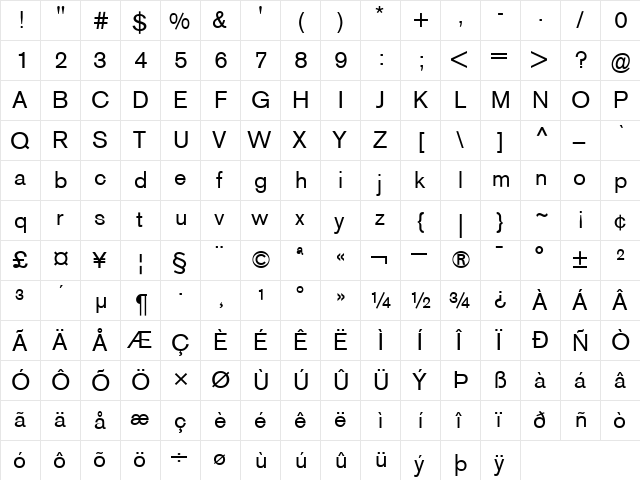
BertholdAkzidenzGroteskBE Roman
Design Context for BertholdAkzidenzGroteskBE Typeface
BertholdAkzidenzGroteskBE has the quiet confidence of well-executed sans-serif typography: versatile, unobtrusive, and dependable at any size.
Font Pairing: Works well alongside a characterful serif or display font that can carry the expressive load while BertholdAkzidenzGroteskBE handles the functional copy.
Pro Tip: Use BertholdAkzidenzGroteskBE for UI labels, navigation, and short-form body copy where clean legibility is the priority.